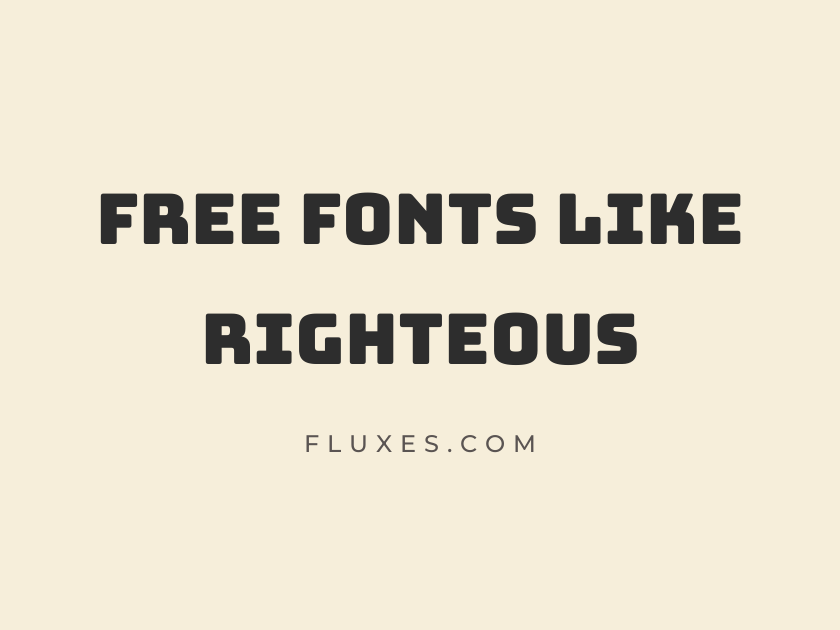
15 Best Free Fonts Similar to Righteous
Righteous built its reputation on a clean, geometric silhouette with just enough roundness to feel friendly rather than industrial, which is exactly why it shows up so often in logos, app icons, and poster headlines. Designers who love that retro-futuristic, slightly art deco personality but need more weights, more character variety, or simply a fresh look for a new project tend to go hunting for free fonts similar to Righteous on Google Fonts. The good news is that the geometric sans and rounded display category is well stocked, even if only a handful of fonts truly capture that same balance of boldness and warmth.
Bold city signage for a modern skyline
Bungee was built for signage, and it shows: thick, unwavering strokes and a squared-off geometry give it real presence at billboard scale. It shares Righteous’s confident, retro-urban energy but leans a touch more architectural, making it a strong pick for sports branding, transit-style graphics, or any headline that needs to shout.
Big bold headlines that jump off the page
If Righteous had a louder, chunkier sibling, it would look a lot like Titan One. The inflated, balloon-like letterforms carry a cheerful, cartoonish weight that suits game logos, kids’ branding, and anything that wants to feel fun rather than corporate.
Paytone One
Friendly bold type for everyday branding
Paytone One might be the closest match on this list to Righteous’s actual proportions: geometric, rounded at the joints, and confident without tipping into novelty. It reads cleanly at both large display sizes and mid-size subheads, which makes it one of the more versatile substitutes here.
Retro comic energy for playful posters
Luckiest Guy trades Righteous’s geometric restraint for a bouncier, hand-inked comic feel, all thick outlines and slightly uneven baselines. It works beautifully for logos and lockups that want personality first, legibility second, but it can feel too casual for anything serious or text-heavy.
weight=”700″ text=”Soft rounded shapes with a modern bounce”] Fredoka’s rounded terminals and generous curves give it a soft, toy-like charm, and at its bold weight it becomes a genuinely strong Righteous alternative for friendly, approachable branding. It also comes in a full range of weights, so it adapts more easily to body copy and UI text than Righteous typically would.
weight=”700″ text=”Warm rounded display type for headlines”] Baloo 2 keeps a similar geometric backbone but softens every corner, giving it a warmer, more huggable feel than Righteous. It pairs nicely with clean sans body text and holds up well in multilingual projects thanks to its wide script support.
Heavy slab letters for confident statements
Alfa Slab One swaps rounded terminals for slab serifs, but the same thick, geometric confidence is there. It suits vintage badges, craft packaging, and retro logotypes, though its heaviness means it needs generous spacing to avoid looking cramped.
Bold rounded type with a friendly grip
Passion One is a lesser-known but genuinely useful pick: rounded, sturdy, and slightly condensed, it feels like a quieter cousin to Righteous that still has plenty of punch. It handles short headlines and callout text with equal ease.
Concert One
Smooth geometric letters for casual branding
There is an easy, unforced charm to Concert One, with rounded bowls and a relaxed geometric rhythm that feels less shouty than many display alternatives. It works well for lifestyle brands, event graphics, and anywhere a headline needs warmth without heaviness.
Sigmar One
Chunky retro type for bold statements
Sigmar One leans further into the retro side of the spectrum, with thick, almost inflated strokes that recall vintage advertising lettering. It is a good choice when a project wants nostalgia and boldness in equal measure, though its weight makes it strictly a display font, not a body text option.
Bold rounded type with retro dimension
Rammetto One carries a subtle three-dimensional quality, as if each letter has a little shadow baked into its curves. That gives it a fun, retro-diner personality that suits food branding, badges, and playful logotypes looking for something a bit different from the usual flat display fonts.
Groovy bold letters with a retro swing
Boogaloo has a loose, hand-drawn looseness to its curves that gives it a groovy, seventies feel. It is best used sparingly, in short bursts like titles or logos, since its irregular rhythm can get tiring across longer lines.
Understated rounded sans for calm headlines
For designers who like the rounded warmth of Righteous but want something more restrained, Varela Round is worth a look. Its softened edges and even weight distribution make it far more comfortable in body copy and UI contexts, trading display drama for everyday usability.
If legibility at small sizes matters, lean toward the more restrained choices such as Paytone One or Varela Round rather than the heavier novelty styles.
Righteous earned its popularity by making bold, geometric type feel approachable, and the alternatives above cover that same territory from several different angles, some heavier, some softer, some more playful. Testing a few side by side in an actual layout is still the best way to find the one that matches a project’s tone, since even fonts with similar proportions can carry very different personalities once they are set at scale.